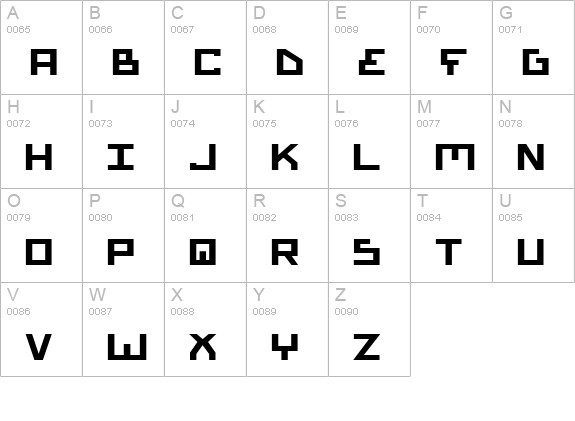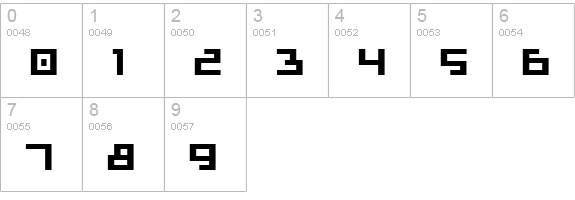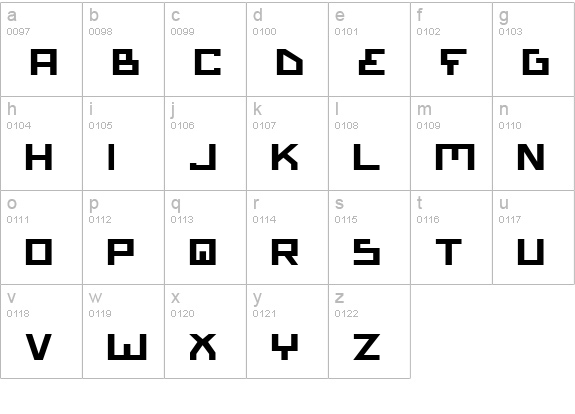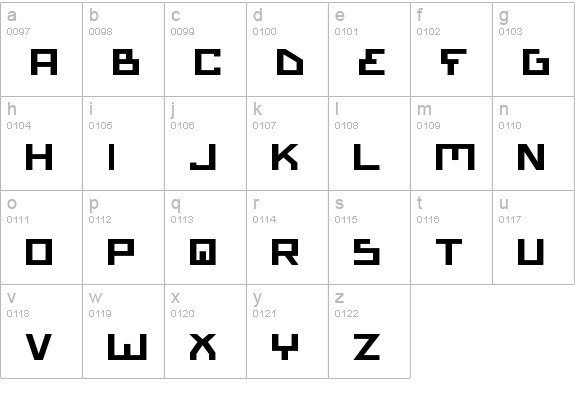
Bionic Type Expanded Bold is a strong, high-contrast, extended-width variant in the Bionic typeface family \xE2\x80\x94 well suited to headlines, attention-grabbing titles, and strong calls-to-action.
Bionic Type Expanded Bold font is a modern and dynamic typeface that exudes strength and versatility. Its bold and impactful design makes it perfect for grabbing attention and making a statement. The clean lines and sharp edges give this font a futuristic and cutting-edge look, making it ideal for various design projects. The Bionic Type Expanded Bold font is not only visually striking but also highly functional, offering great readability in both print and digital formats. Whether you're designing a poster, logo, website, or any other creative project, this font will make a bold statement and leave a lasting impression. Best of all, the Bionic Type Expanded Bold font is available for free download at FontsMarket.com. So, go ahead and unleash your creativity with this powerful and eye-catching font that will take your designs to the next level.